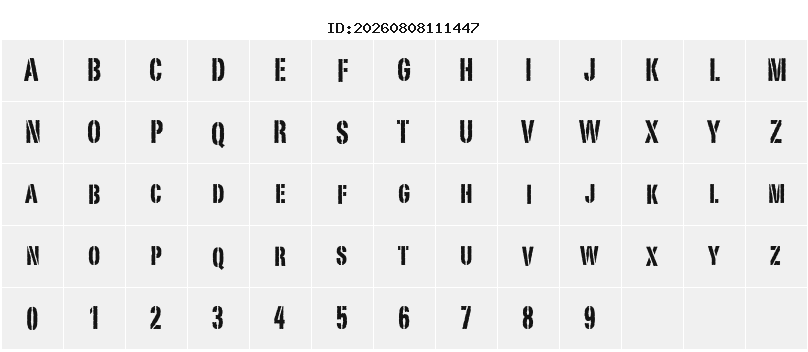
Portago ITC Preview
• Font Name: Portago ITC
• Full Font Name: Portago ITC
About Portago ITC.ttf
Portago ITC.ttf is a modern, elegant sans-serif font designed for ultimate readability and visual harmony. Perfect for branding, headlines, web design, and print materials.